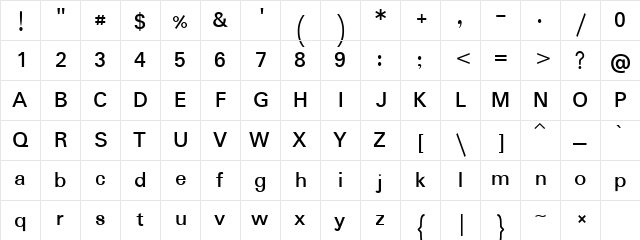
ပိတောက်စာအုပ် Regular
| Foundry | SIL |
| Designer | Debbi Hosken |
Design Context for ပိတောက်စာအုပ် Typeface
ပိတောက်စာအုပ် takes a measured approach to typography — its balanced proportions and neutral character make it a reliable workhorse for both digital and print work.